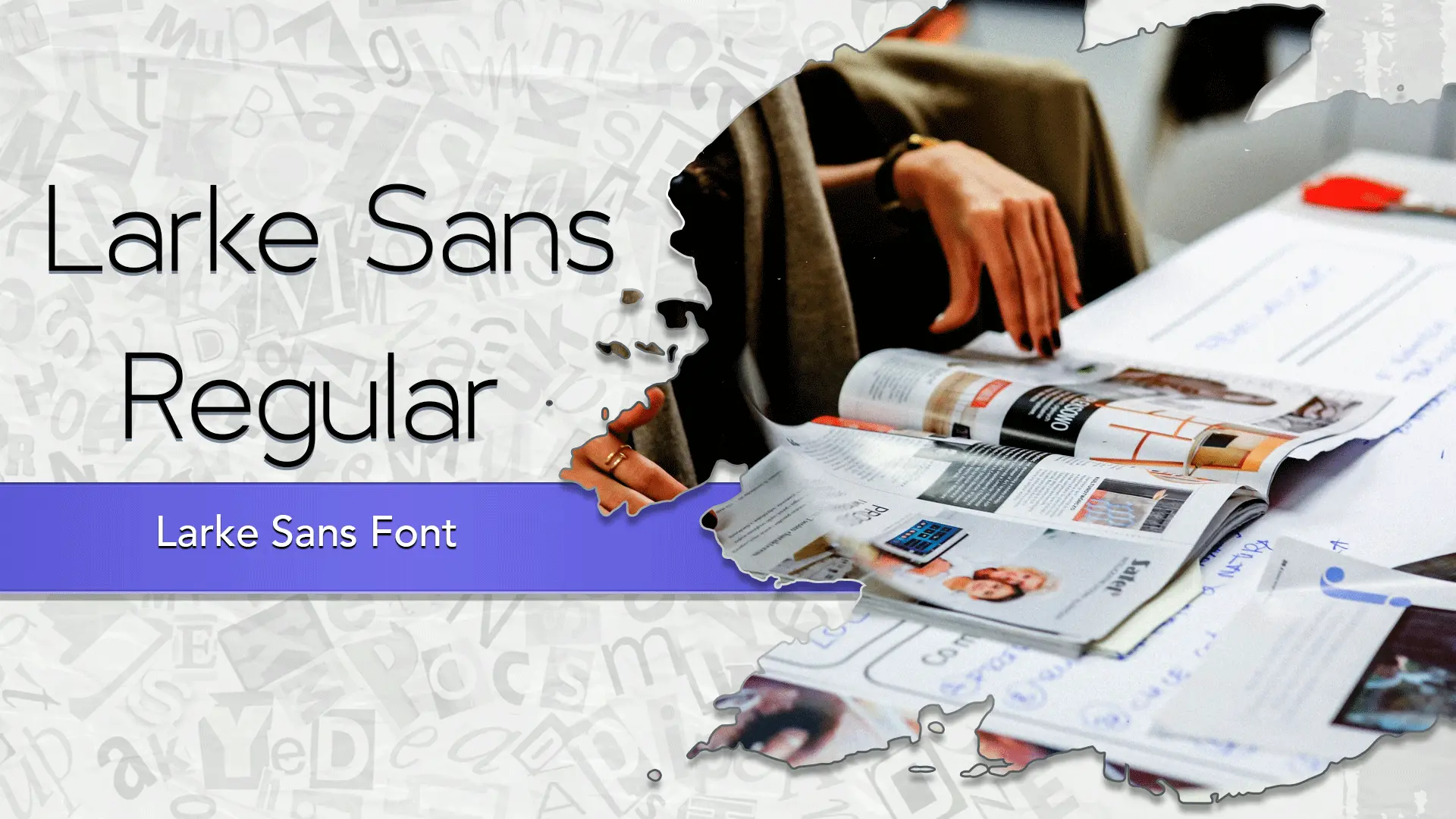
The Larke Sans font family may be ideal for you if you enjoy working on an artistic design project. The lively, expressive look of this typeface, which was created by Steve Gardner, makes it ideal for Branding and Logos, Website body text and headlines, Interactive elements: on website like Buttons & menus, Magazines and Newspapers, Reports, presentations, manuals and other light-hearted visual projects.
Bold, Regular are the two primary font styles of the Larke Sans font family. You may build dynamic, visually appealing text layouts with the distinct flair that each style offers. With crisp, readable lines and a relaxed tone.